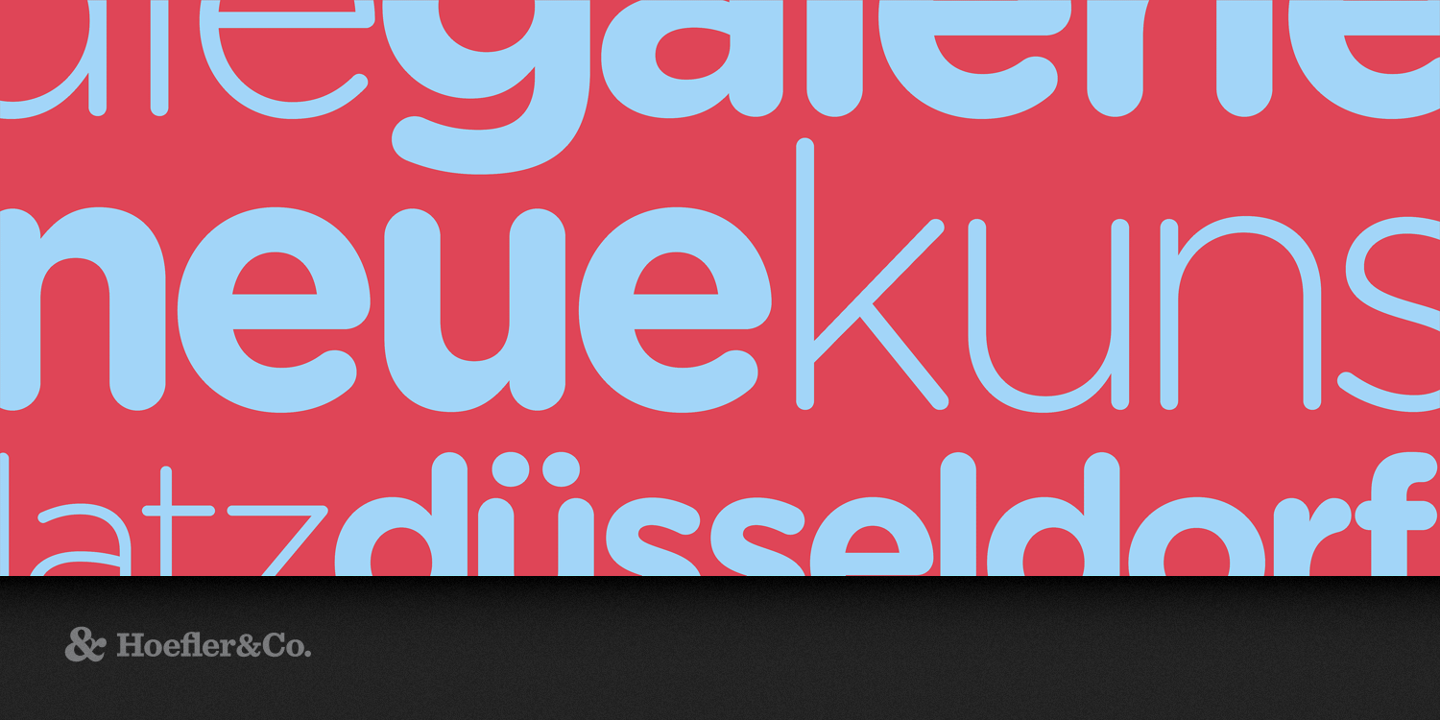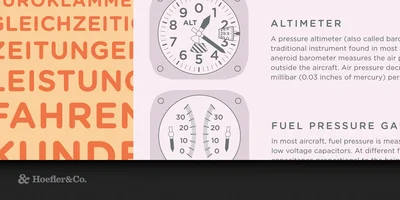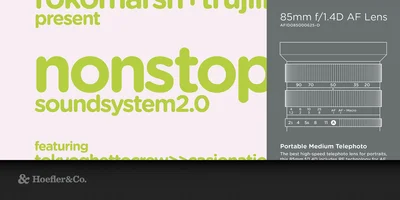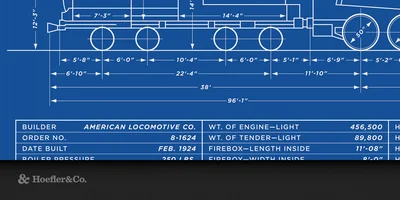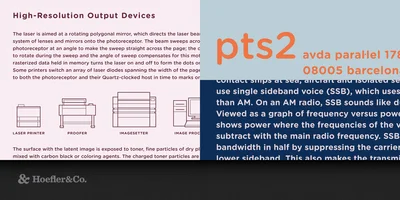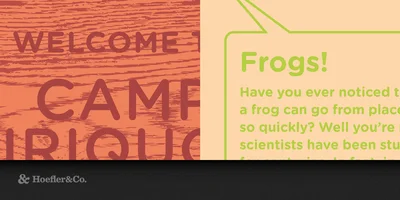
Figtree vs Gotham Rounded
Figtree and Gotham Rounded are both sans-serif typefaces sharing a geometric foundation. The two share 75% design similarity overall. Compare which suits your Apps project.
75% Similarity
Design overlap:75%
Figtree
Geometric
WarmModern
Gotham Rounded
GeometricRounded
WarmModern
Figtree
Gotham Rounded
| Feature | Figtree | Gotham Rounded |
| Variable Font | Yes | No |
| Weights | Variable | Multiple |
| Source | Erik Kennedy | Hoefler&Co |
Applications
Figtree Gotham
UI Design
Figtree Gotham
Web Design
Figtree Gotham
Friendly
Figtree Gotham
Packaging
Figtree Gotham
Recommended: Figtree
- Suited for Ui and Web
- From erik-kennedy
- Available as a variable font
Consider: Gotham Rounded
- rounded design character
- Suited for Friendly and Packaging
- From hoeflerco